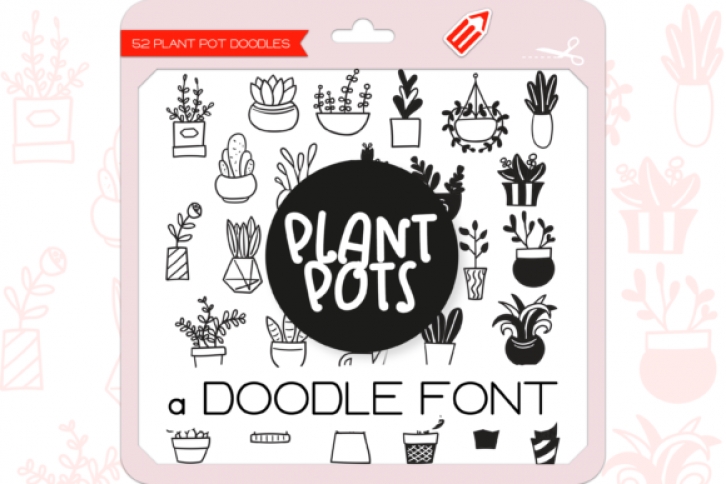
Plant Pots dingbats is a fun customized font where each letter is a unique doodle. This set contains 52 hand-drawn doodles of indoor plants. Add this font to your creative ideas or them to create dividers, borders, or frames.